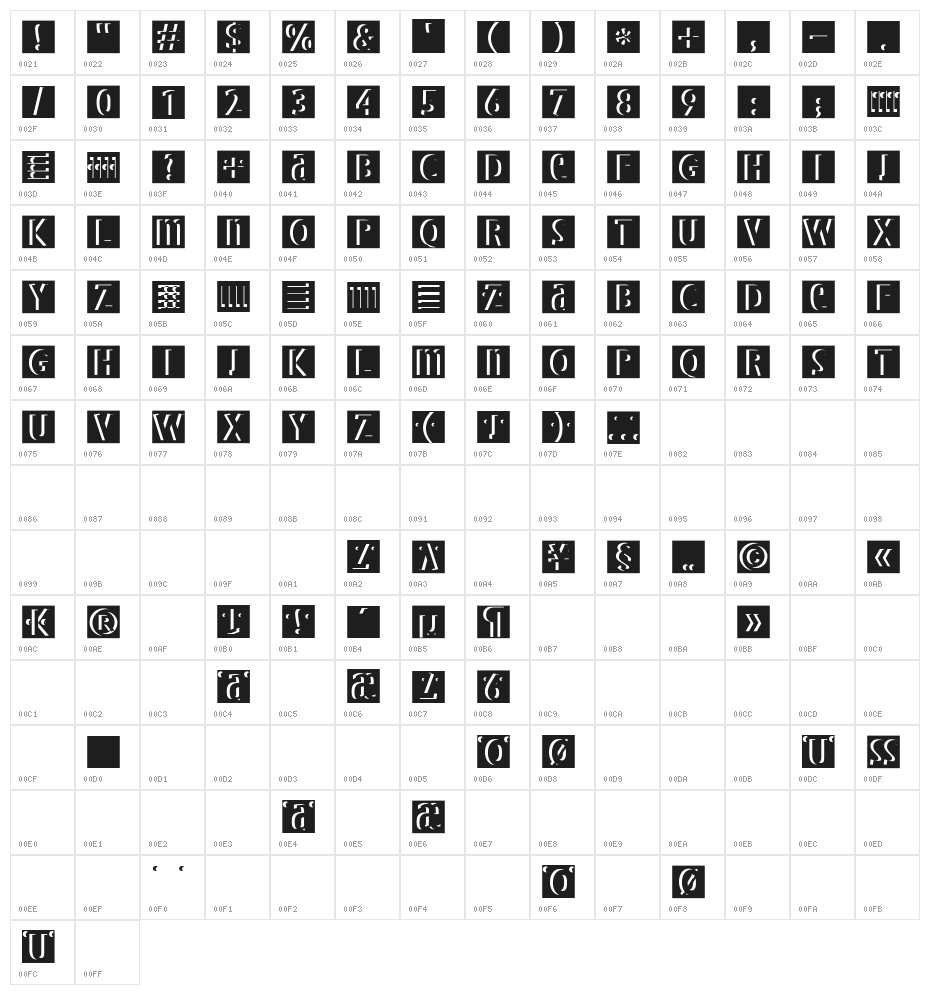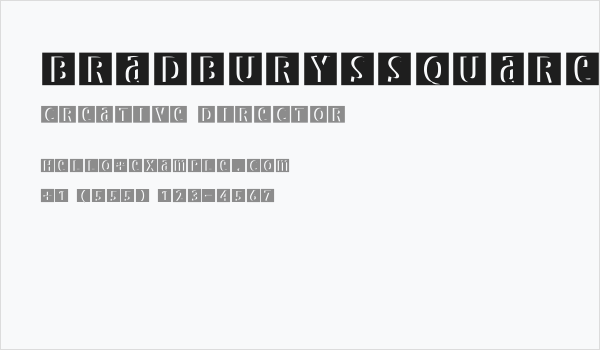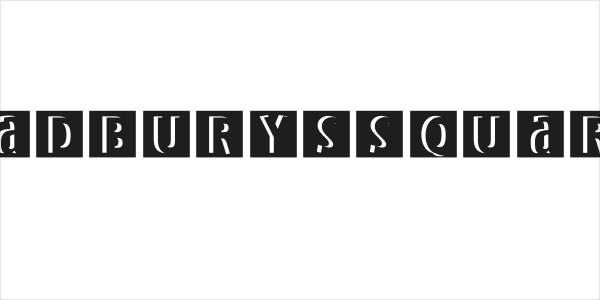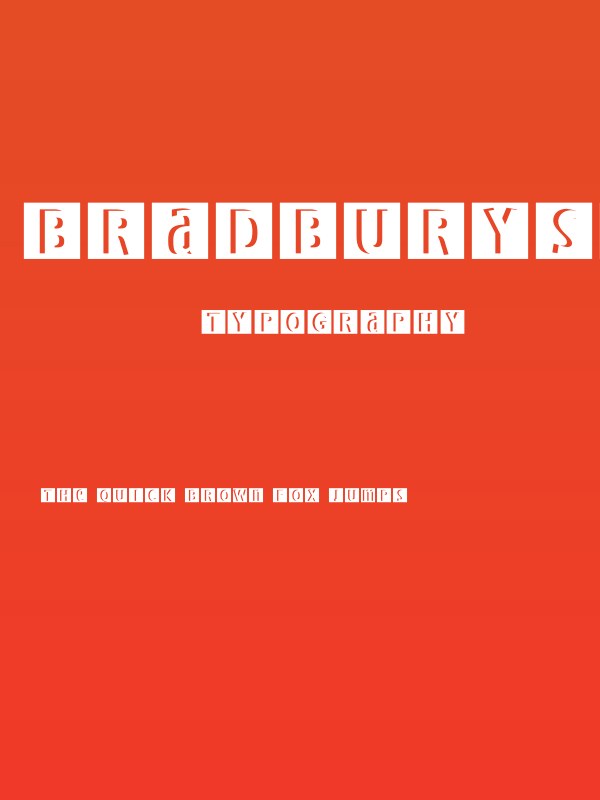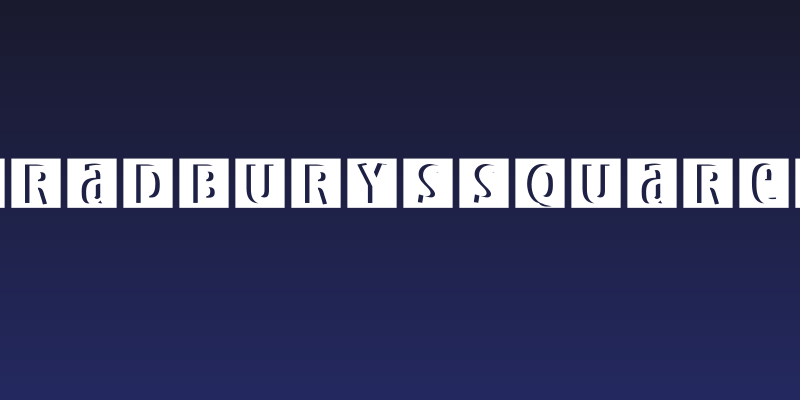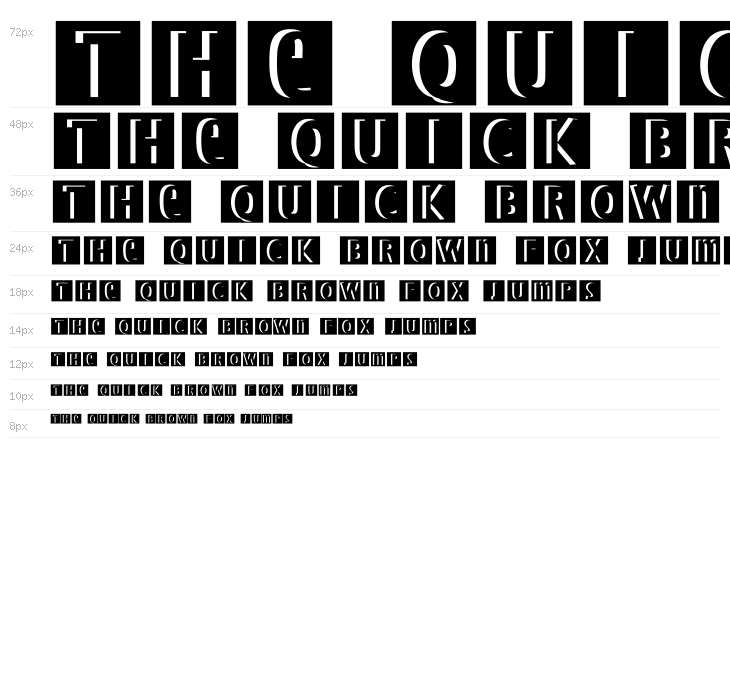
BradburysSquares Font
BradburysSquares Description
This font features a bold and striking design with each character enclosed in a square, creating a strong visual impact. The letters are stylized with unique cutouts and angles, giving them a modern and artistic flair. The uppercase and lowercase letters maintain a consistent style, while the numbers and special characters are designed to match the overall aesthetic. The font's geometric structure and high contrast make it stand out, suitable for attention-grabbing headlines or creative projects.
| Proposed Projects | Ideal for posters, logos, branding, and any project requiring a modern and artistic touch. |